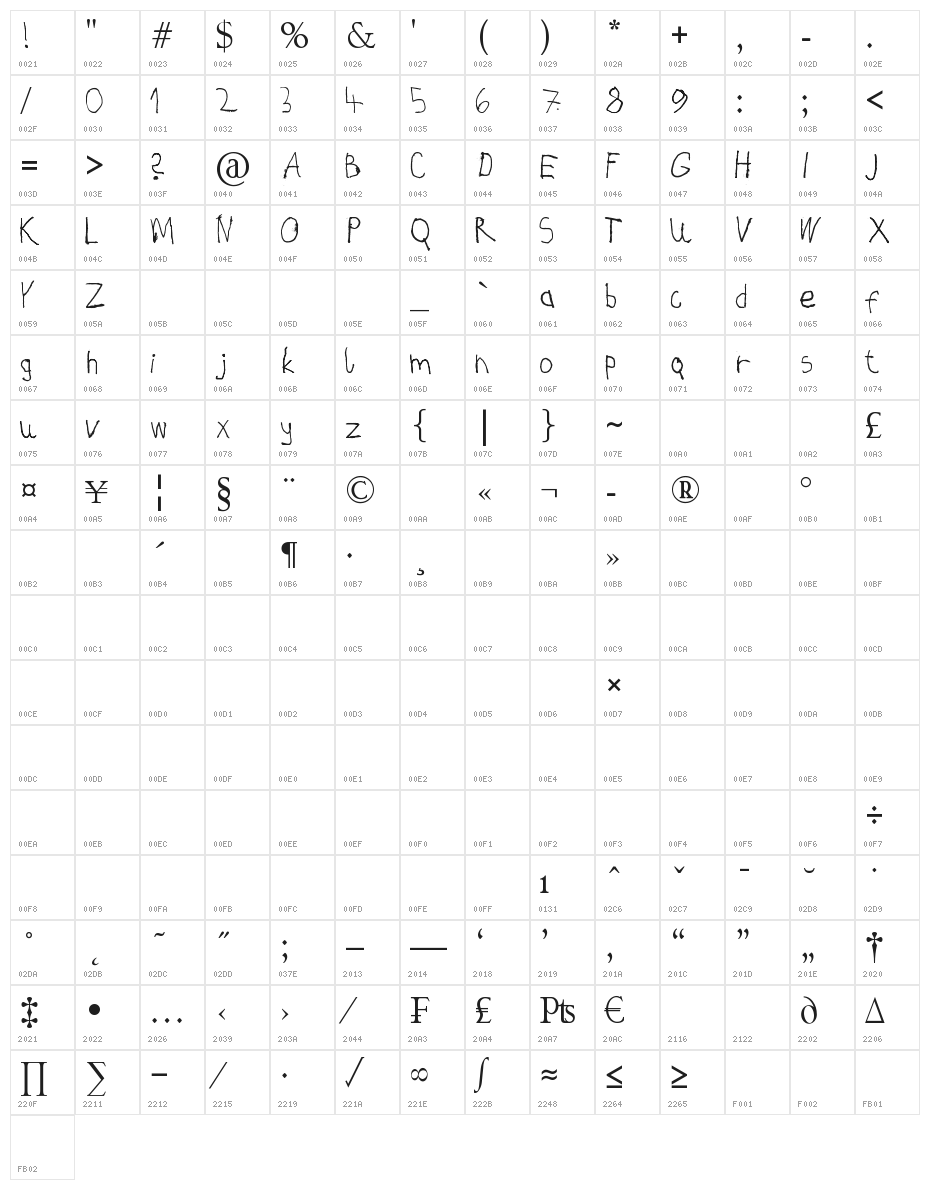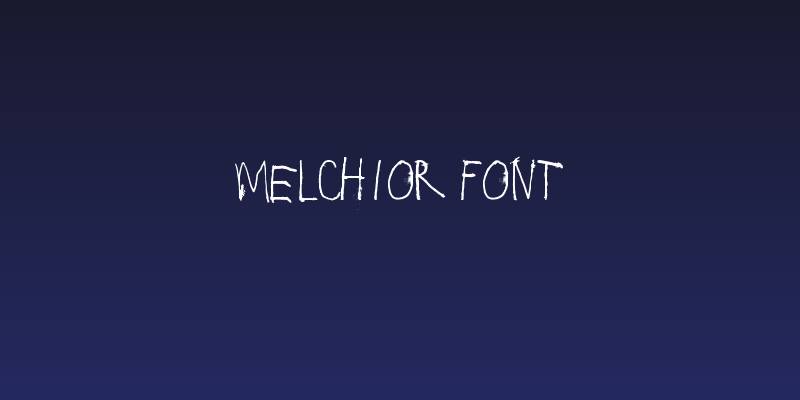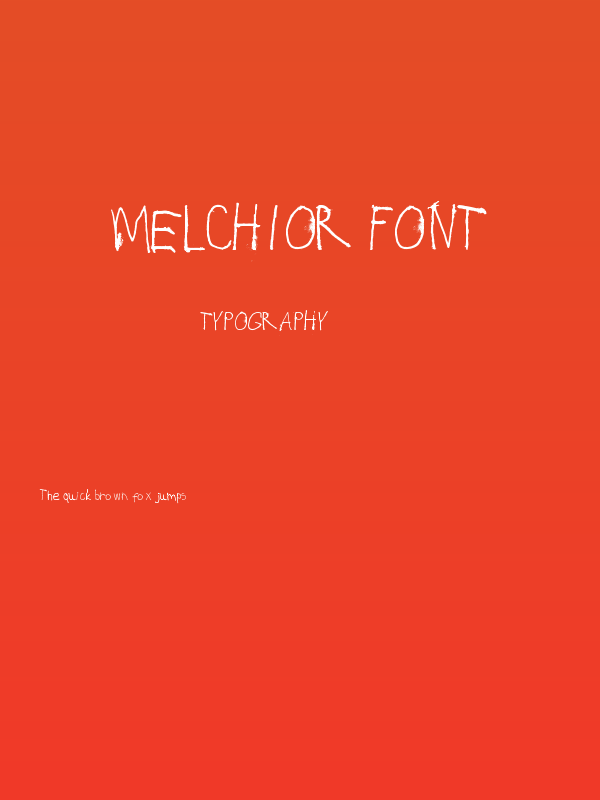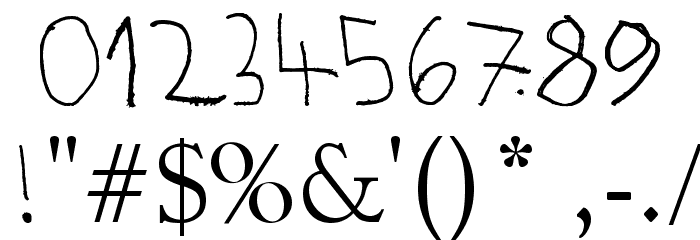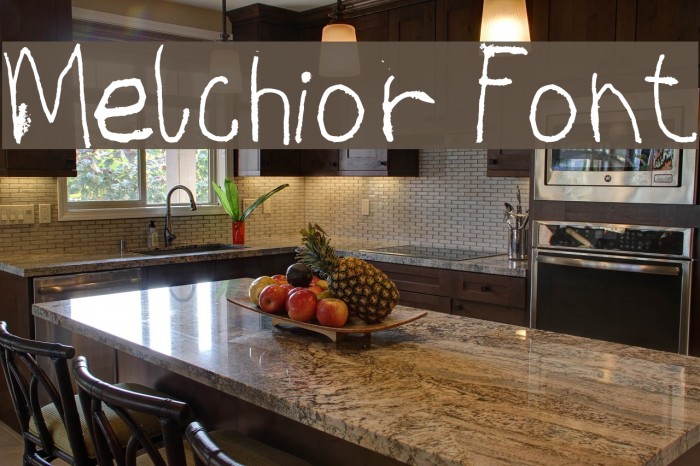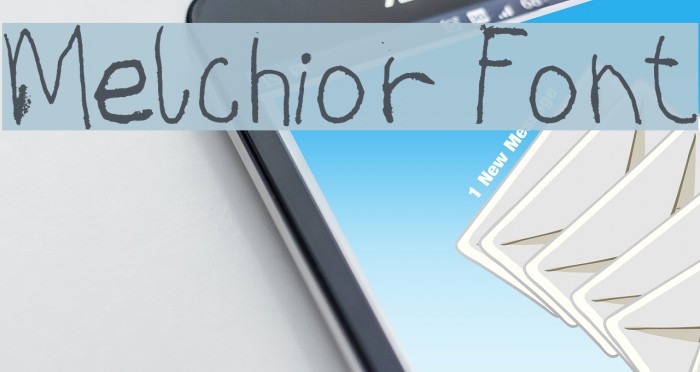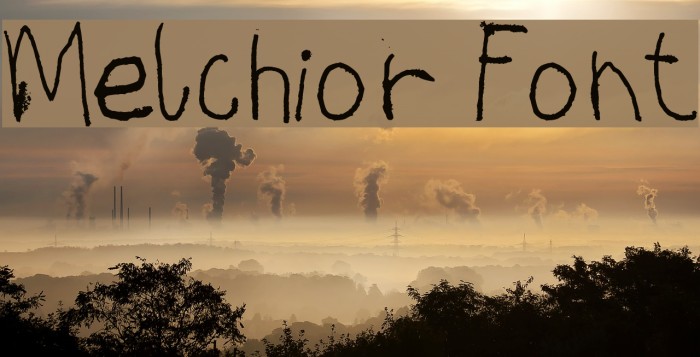
Melchior Font Font
Melchior Font Description
This font features a distinctive handwritten style, characterized by its rough, textured appearance. The letters are unevenly shaped, giving it a raw and organic feel. The strokes are irregular, with varying thickness that adds to its unique charm. The uppercase and lowercase letters maintain a consistent style, while the numbers and special characters complement the overall design. This font exudes a sense of authenticity and creativity, making it ideal for projects that require a personal touch.
| Proposed Projects | Perfect for artistic projects, personal branding, invitations, and creative posters. |